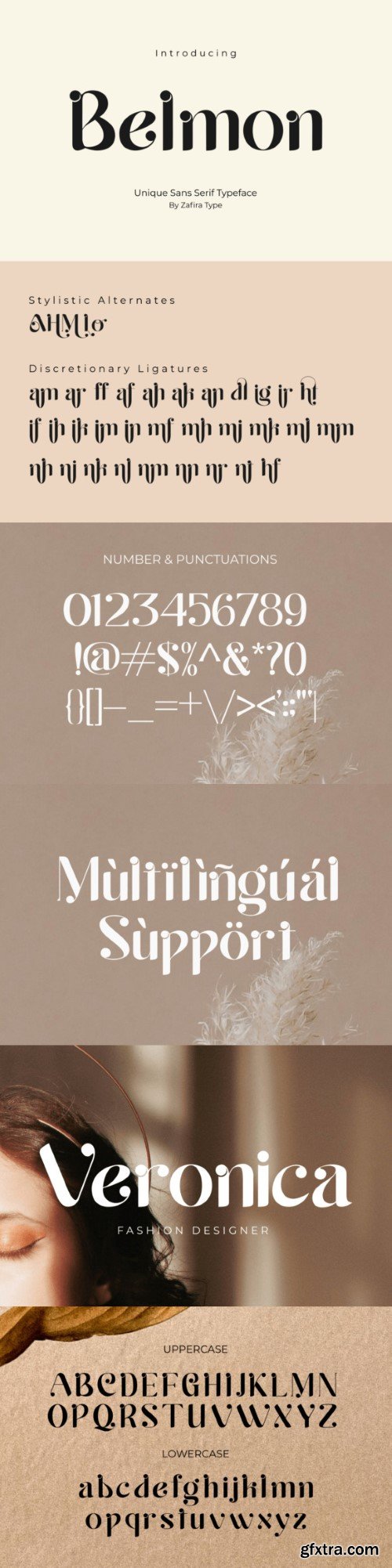
贝尔蒙字体
Belmon is a modern and elegant sans-serif font. Belmon is well-suited for advertising, branding, logotypes, packaging, titles, headlines, and editorial designs. This font is PUA encoded which means you can access all of the amazing glyphs and ligatures with ease!